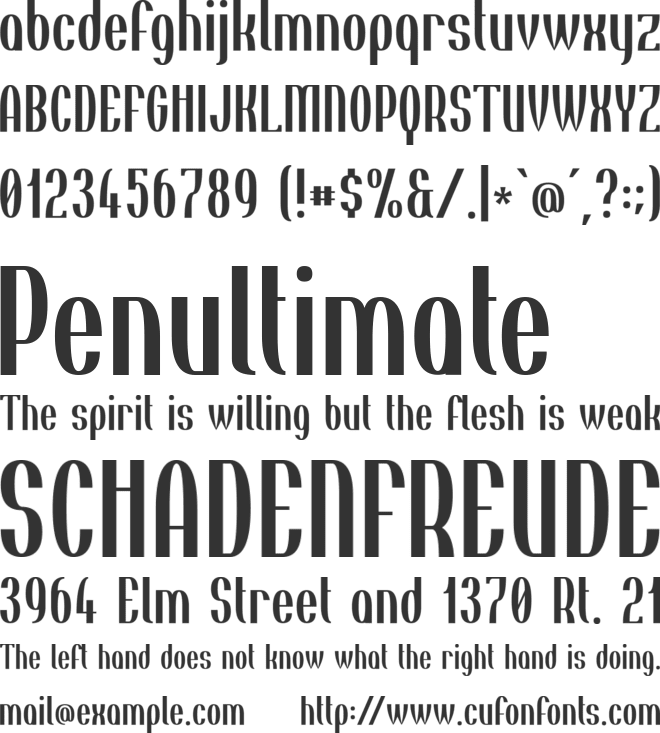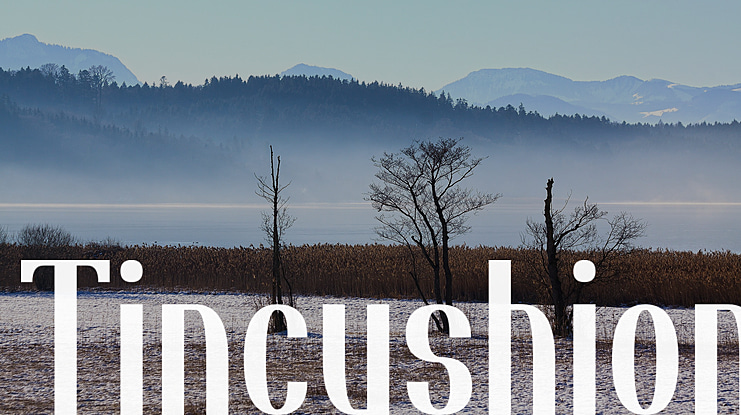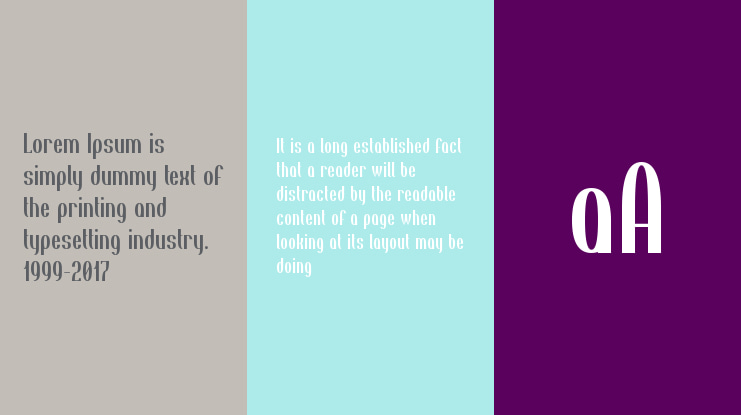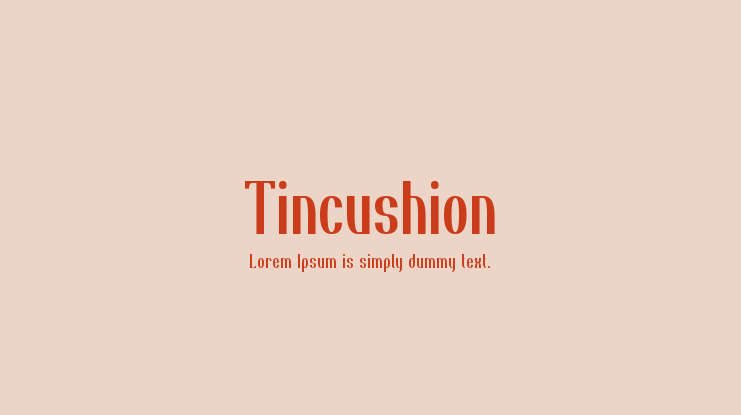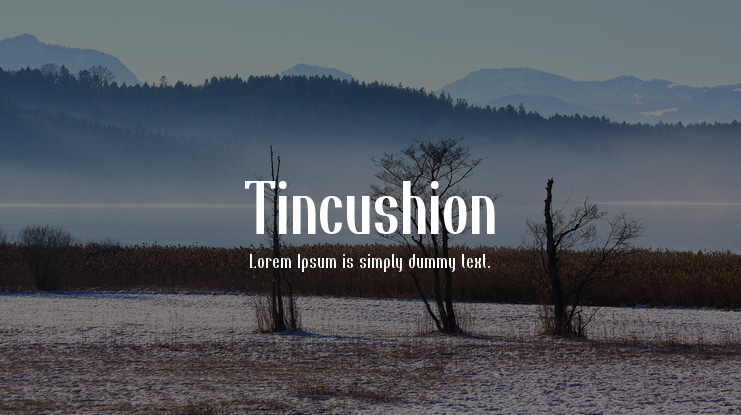
Tincushion Font Family
Vít Čondák
My take on a "serious" font including all diacritics marks I can think of, Greek and Russian Cyrillic. (2001-2015) Regular + Light